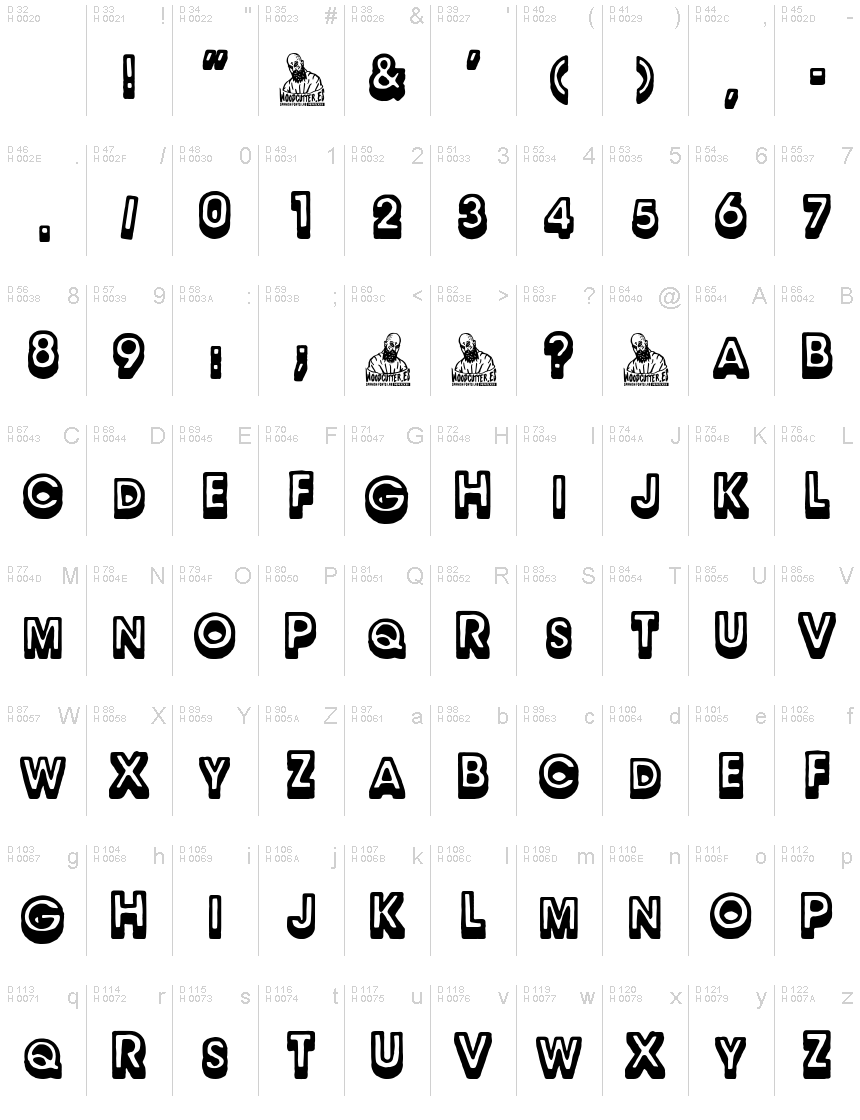
Children Tittle
Children Tittle, crafted by Woodcutter, stands out with its bold and whimsical charm. This display font boasts a 3D, distorted style that leaps off the page, making it an irresistible choice for those looking to infuse a touch of playfulness into their designs. The bold weight of Children Tittle ensures that it holds its ground in any creative endeavor, from eye-catching headlines to vibrant posters.
The font's aesthetic appeal lies in its ability to marry the innocence of childhood doodles with the solidity of modern design techniques. Its quirky contours and dimensional depth bring a lively energy to any project. Ideal for themed events, children's book titles, or any context requiring a dash of fun and creativity, Children Tittle is your go-to font for making a statement that's as unique as it is delightful.